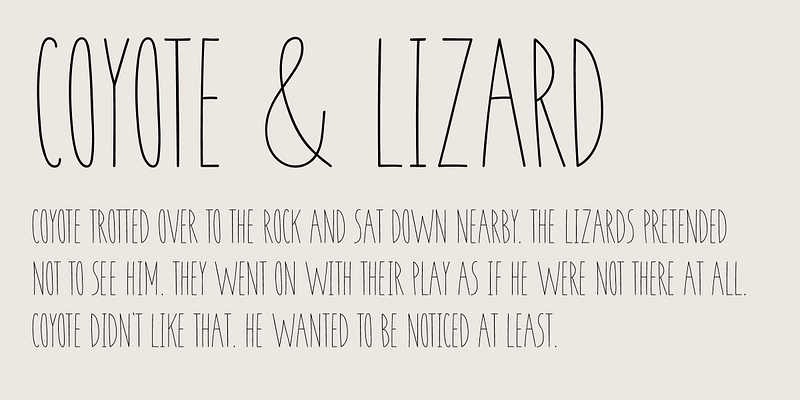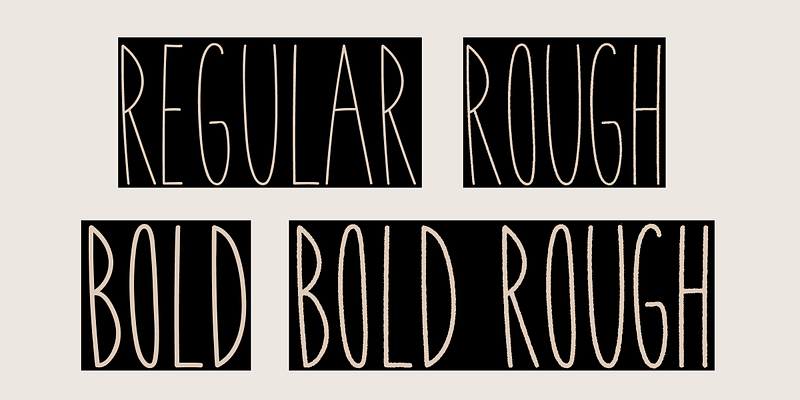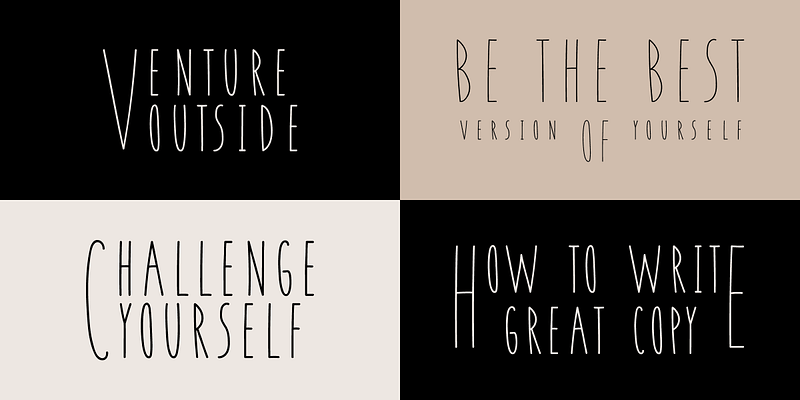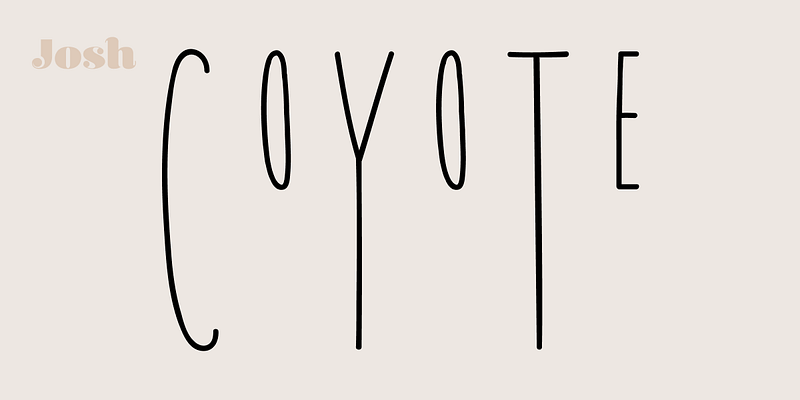
Coyote is a fun, handwritten font that’s perfect for adding a handmade touch to your designs on invitations, cups, posters, wall decals, logos, quotes, and more. Coyote is an uppercase font with small caps for its lowercase, so you can play with and mix characters to create unique designs for any purpose. Frame words, create drop caps, or keep it simple with uppercase characters. Rough versions are included, too, for even more flexibility and creative control over your designs.